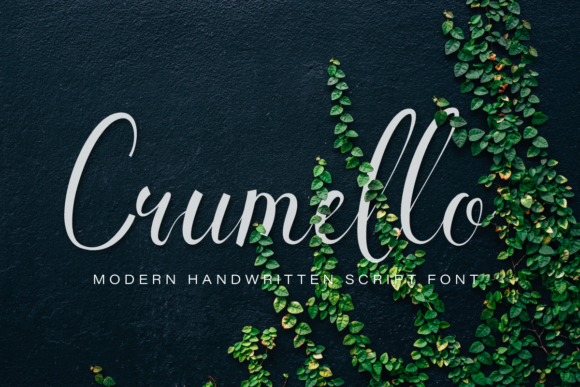
Crumello Font: The Perfect Choice for Romantic and Elegant Designs
Crumello is a beautiful, dainty, and flowing script font that can add a touch of romance and elegance to any design project. This lovely font is perfect for crafters, designers, and anyone looking to create stunning visual content that exudes love, care, and attention to detail. In this article, we’ll explore the features and benefits of Crumello font, and how you can use it to take your designs to the next level.
What is Crumello Font?
Crumello is a script font that features delicate, cursive letters with a whimsical and romantic feel. The font is designed to mimic the look of handwritten text, with varying letter widths and subtle connections between letters. This creates a sense of fluidity and movement, making it perfect for designs that require a personal and emotional touch.
Key Features of Crumello Font
- Dainty and flowing script: Crumello font features a beautiful, cursive script that is both elegant and refined.
- Romantic and lovely look: The font has a whimsical and romantic feel, making it perfect for designs that require a personal touch.
- Perfect for love letters and wedding invitations: Crumello font is ideal for creating beautiful love letters, wedding invitations, and other romantic designs.
- Easy to read: Despite its delicate nature, Crumello font is easy to read, making it perfect for body text and headings.
Benefits of Using Crumello Font
There are many benefits to using Crumello font in your design projects. Here are a few:
- Adds a personal touch: Crumello font adds a personal and emotional touch to your designs, making them more relatable and engaging.
- Creates a romantic atmosphere: The font’s romantic and whimsical feel creates a beautiful atmosphere, perfect for designs that require a sense of love and care.
- Versatile: Crumello font can be used in a variety of design projects, from wedding invitations to social media graphics.
- Elegant and refined: The font’s elegant and refined look makes it perfect for designs that require a sense of sophistication and luxury.
How to Use Crumello Font in Your Designs
Using Crumello font in your designs is easy. Here are a few tips to get you started:
- Pair it with a simple background: Crumello font looks best on simple backgrounds that allow the font to take center stage.
- Use it for headings and titles: The font is perfect for headings and titles, where its elegant and refined look can shine.
- Add a personal touch to your designs: Use Crumello font to add a personal touch to your designs, making them more relatable and engaging.
- Experiment with different colors: Try pairing Crumello font with different colors to create a unique and eye-catching design.
Crumello Font in Crafting and Design Projects
Crumello font is perfect for a variety of crafting and design projects, including:
- Wedding invitations: The font’s romantic and elegant look makes it perfect for wedding invitations and other wedding-related designs.
- Love letters: Crumello font is ideal for writing love letters and other personal correspondence.
- Social media graphics: The font can be used to create beautiful social media graphics, such as Instagram posts and Facebook covers.
- Stationery and greeting cards: Crumello font is perfect for creating beautiful stationery and greeting cards that require a personal touch.
Crumello font is a beautiful and elegant script font that can add a touch of romance and sophistication to any design project. Its delicate and flowing script makes it perfect for designs that require a personal and emotional touch. Whether you’re a designer, crafter, or simply someone looking to create beautiful visual content, Crumello font is a great choice. So why not give it a try and see the amazing results for yourself?